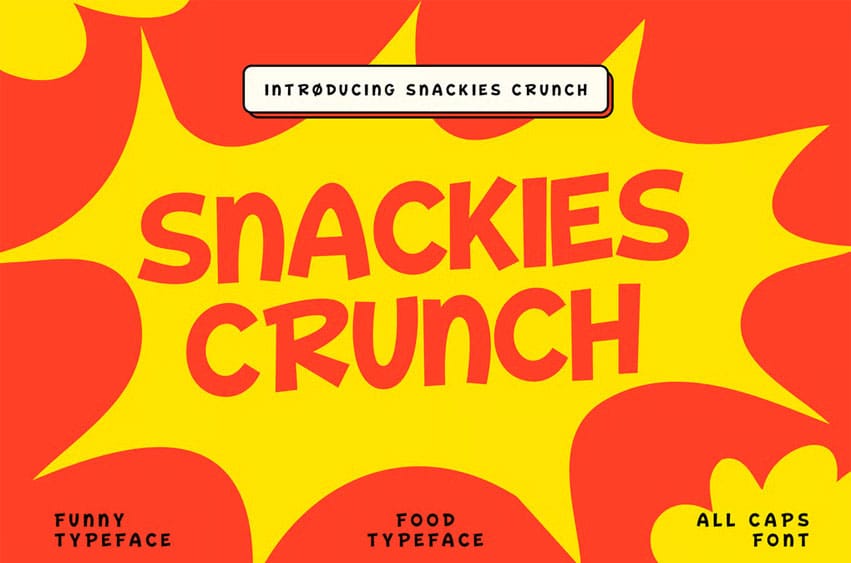
Snackies Crunch Font is a bold and playful all caps display font inspired by crunchy snacks, candy wrappers, and retro food packaging. Its rounded shapes and chunky proportions make every word feel delicious, fun, and full of energy. This typeface is perfect for food and beverage branding, kids’ products, party invitations, posters, and colorful social media graphics. Use Snackies Crunch to create loud headlines, logo lockups, and promotional designs that instantly grab attention and feel tasty and friendly. The font includes uppercase letters, numbers, and punctuation, so you can build complete layouts for both print and digital projects with a consistent, lively look.
Features:Â Playful all caps display style Bold, chunky and rounded letterforms Numbers and basic punctuation included Designed for high-impact headlines and logos Great legibility at large sizes Ideal for food, snack, and kids themes